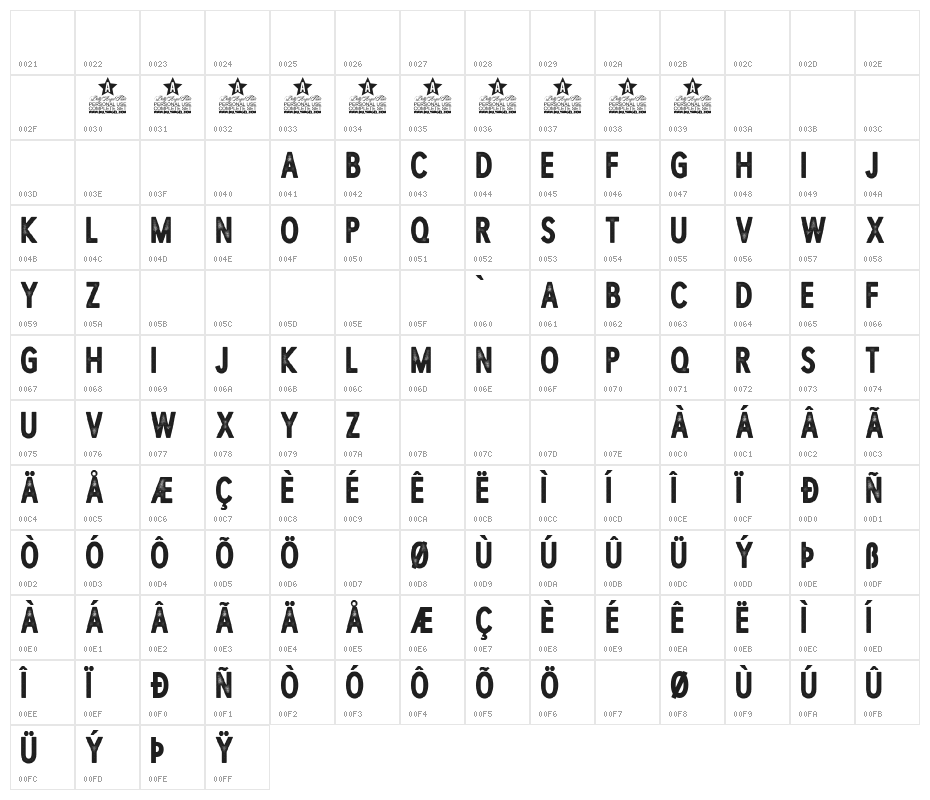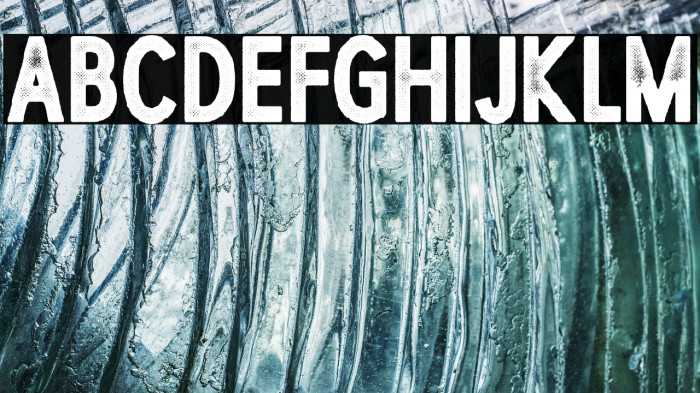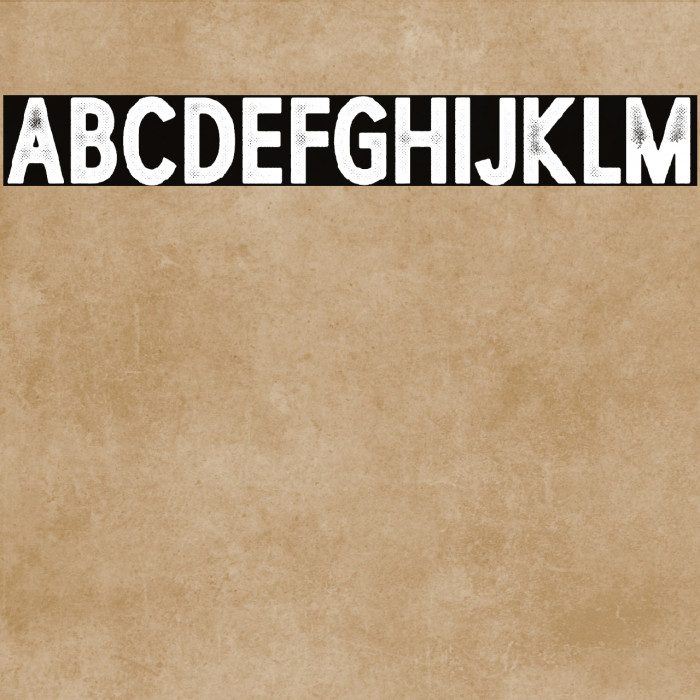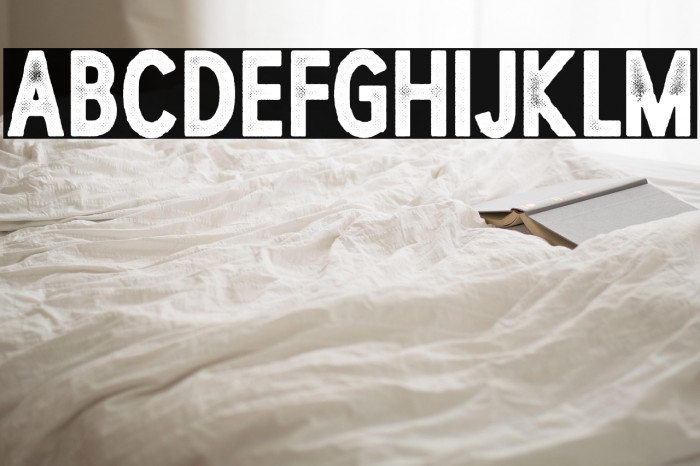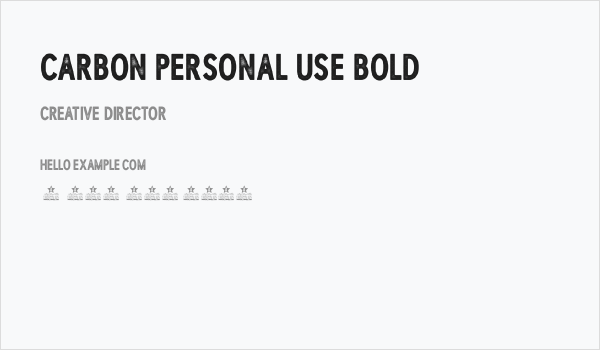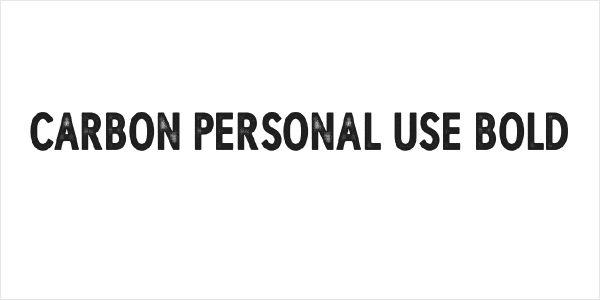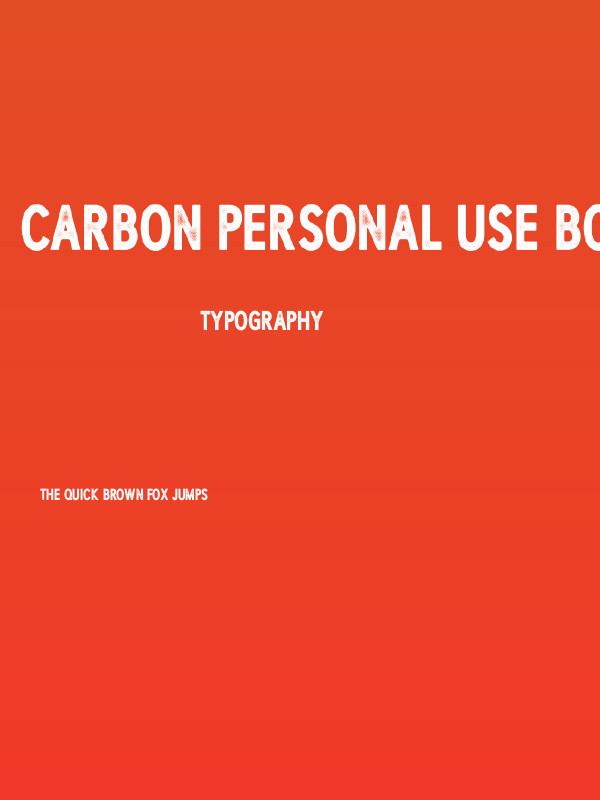
CARBON PERSONAL USE Bold Font
CARBON PERSONAL USE Bold Description
This bold, uppercase font features a distressed, textured appearance that gives it a rugged and industrial feel. The characters are uniformly bold with a slightly condensed width, making them stand out prominently. The texture adds a vintage or grunge aesthetic, suitable for designs that require a strong, impactful look. The font maintains consistent stroke thickness across all characters, ensuring readability while adding a unique visual interest. It is ideal for projects that aim to convey strength and durability, such as branding for outdoor products, automotive industries, or urban-themed designs.
| Proposed Projects | Ideal for branding, posters, and designs requiring a strong, impactful look. |